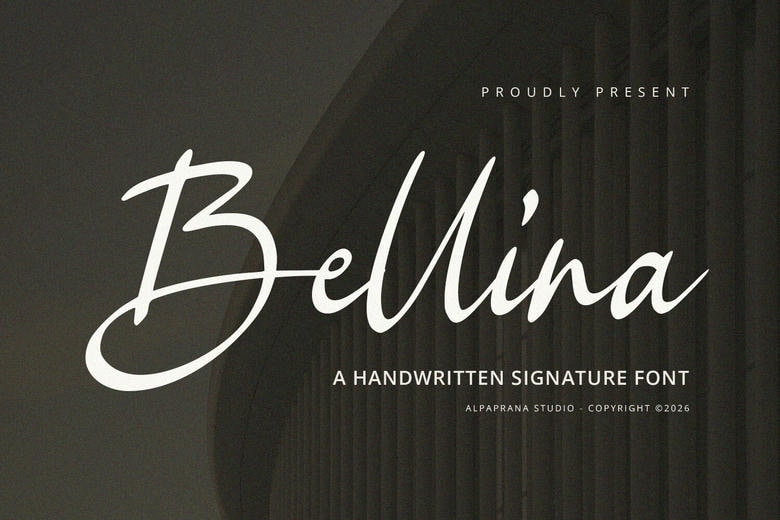
Bellina Font
Bellina is a handwritten font with a modern, distinctive style. It works well for branding, logo design, lettering, clothing, posters, magazines, packaging, shopping bags, T-shirts, book covers, photography, special events, and many other design projects.
Bellina Handwritten Script Font